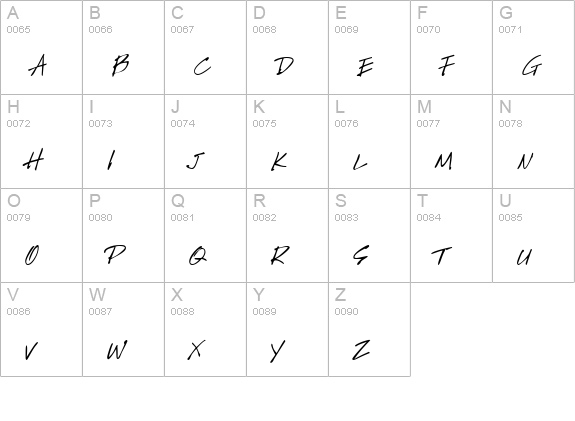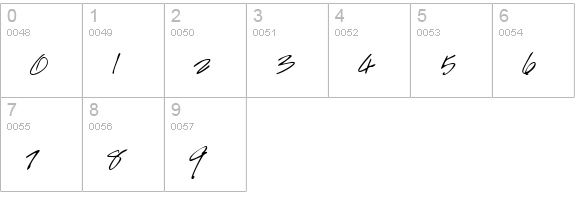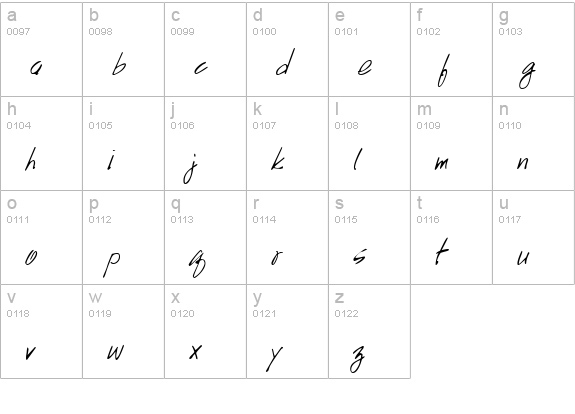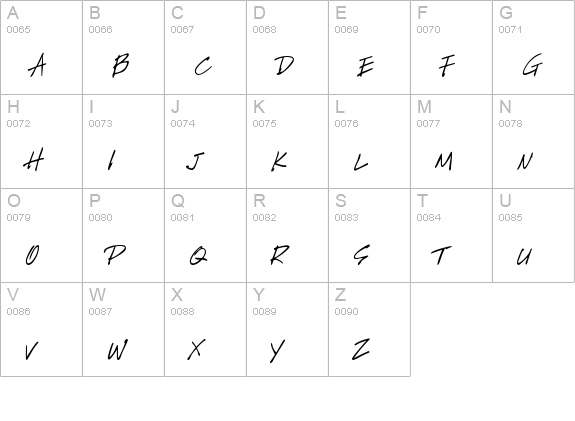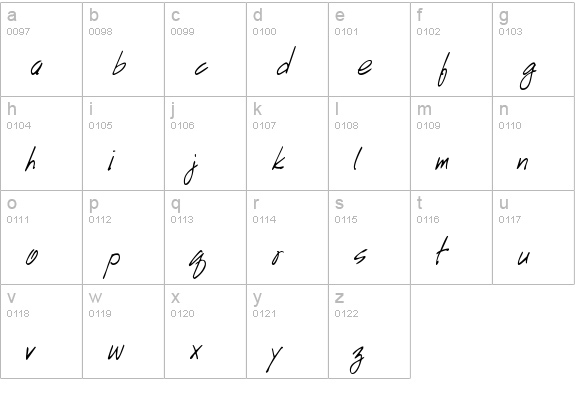
HandScript Font Details
HandScript is a captivating and versatile font that brings a unique and artistic touch to any project. With its elegant and flowing handwritten style, this font is perfect for adding a personal and handmade feel to your designs. Whether you're creating invitations, logos, branding materials, or social media graphics, HandScript will make your text stand out with its natural and organic appearance. What's even better is that HandScript is available for free! That's right, you can freely download this amazing font at FontsMarket.com. This means that you can enjoy all the benefits of HandScript without having to spend a penny. It's a fantastic opportunity to enhance your creativity without breaking the bank. With HandScript, you have access to a wide range of characters, including uppercase, lowercase, numerals, and punctuation marks. This font is designed with attention to detail, ensuring that every stroke and curve adds depth and beauty to your text. The flowing ligatures and alternate characters give you even more options to create unique and eye-catching designs. Whether you're a professional designer or someone who loves to experiment with typography, HandScript is a must-have font in your collection. Its versatility allows it to be used in various contexts, from elegant wedding invitations to playful and whimsical children's book covers. The possibilities are endless when you have HandScript at your fingertips. So why wait? Download HandScript for free at FontsMarket.com and unlock a world of creative possibilities. Let your imagination run wild and create stunning designs that leave a lasting impression. HandScript is not only a font, but it's also a tool that empowers you to express your creativity and make your projects truly unique. Get ready to embark on a typographic journey like no other with HandScript.